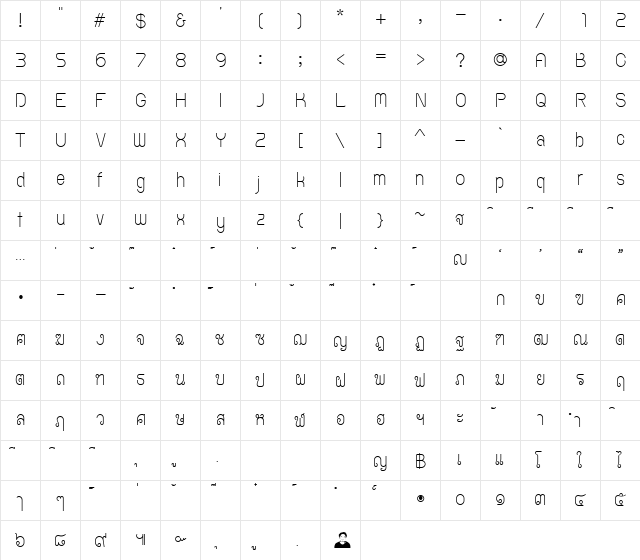
Ti_Text Regular
| Foundry | Warit Chaiyakul |
| Designer | Warit Chaiyakul |
Design Context for Ti_Text Typeface
Ti_Text offers clean, dependable letterforms without strong stylistic allegiance, making it a practical choice for designers who need flexibility.